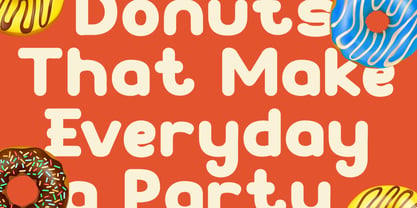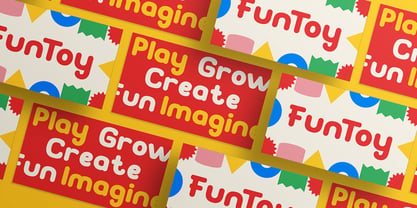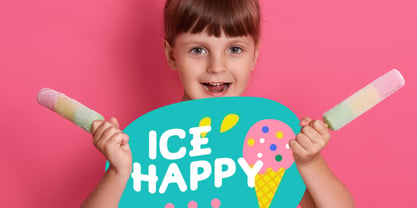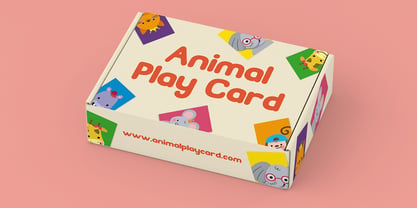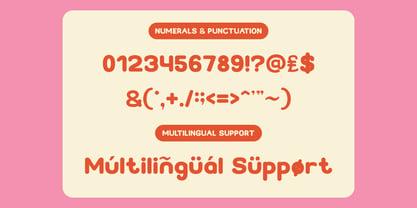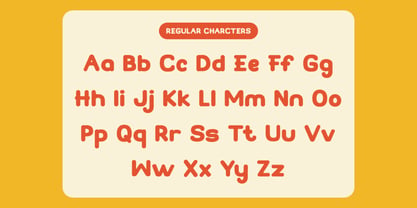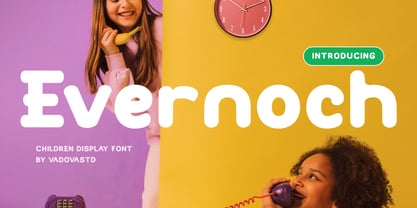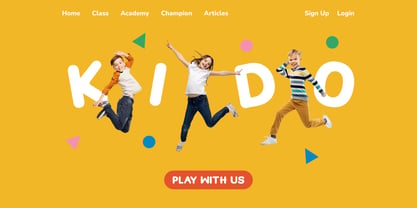
Evernoch
von Vadova Std
Die Schriftfamilie Evernoch entworfen und von Vadova Std veröffentlicht. Evernoch enthält 1 Stile. Mehr über diese Familie
Evernoch Children Display Font is a bold, playful typeface with soft rounded edges and bouncy letterforms, designed for readability in both print and digital formats. It is ideal for toy packaging, kids' games, storybooks, learning materials, birthday invitations, play cards, classroom posters, educational games, YouTube thumbnails, daycare branding, sweet shop signage, stickers, coloring books, puzzles, kindergarten banners, and e-learning platforms. Use Case for toy packaging, children's books, kindergarten posters, party invitations, food branding (donuts, candy, ice cream), educational games, YouTube thumbnails for kids, classroom signs